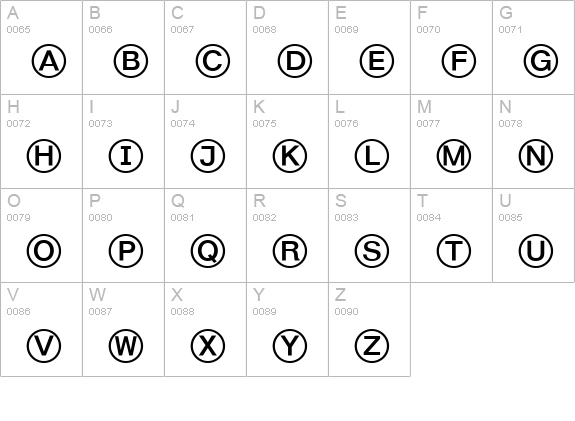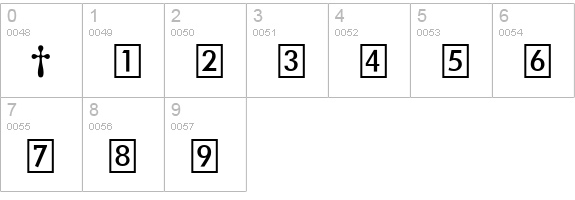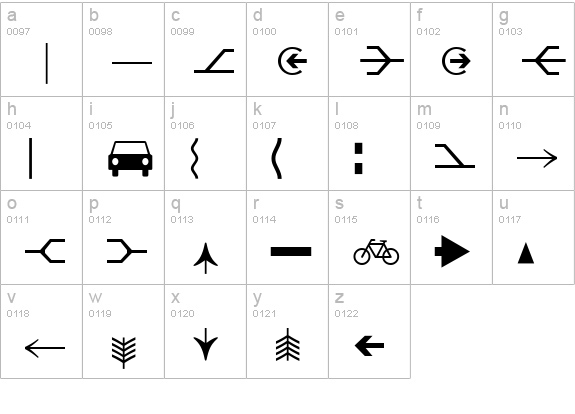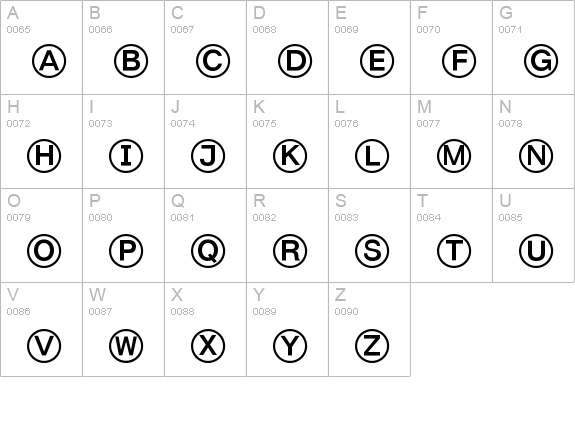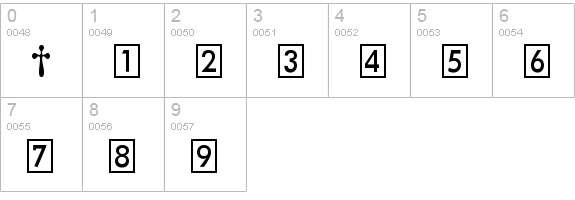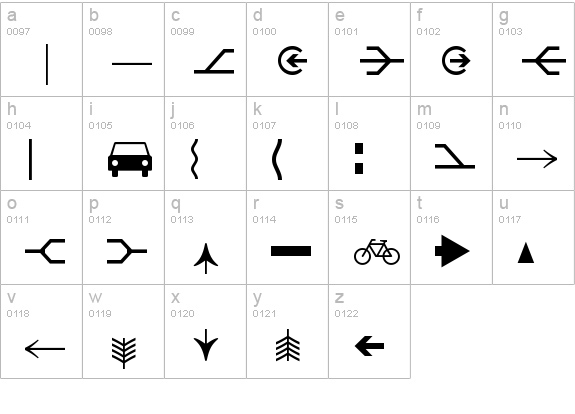
Format Pi Two SSi Font Details
Format Pi Two SSi font is a modern and stylish typeface that exudes a sense of sophistication and creativity. With its sleek lines and geometric shapes, this font is perfect for adding a touch of elegance to any design project. Whether you are creating a logo, branding materials, or website graphics, Format Pi Two SSi font is sure to make a lasting impression. The best part? This stunning font is available for free download at FontsMarket.com. Simply head over to the website and start using Format Pi Two SSi font to elevate your designs to the next level. Don't miss out on this fantastic opportunity to access a high-quality font at no cost. Download Format Pi Two SSi font today and let your creativity soar!